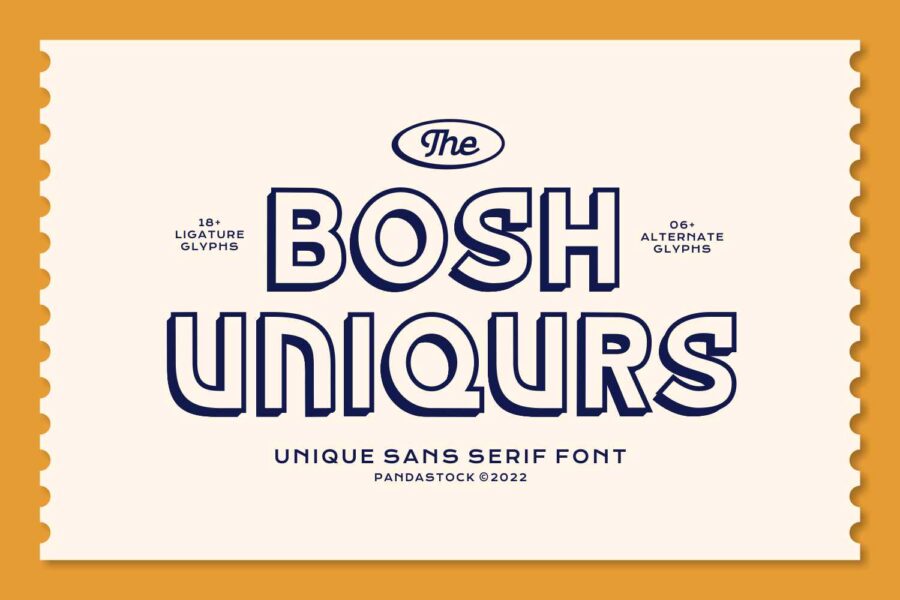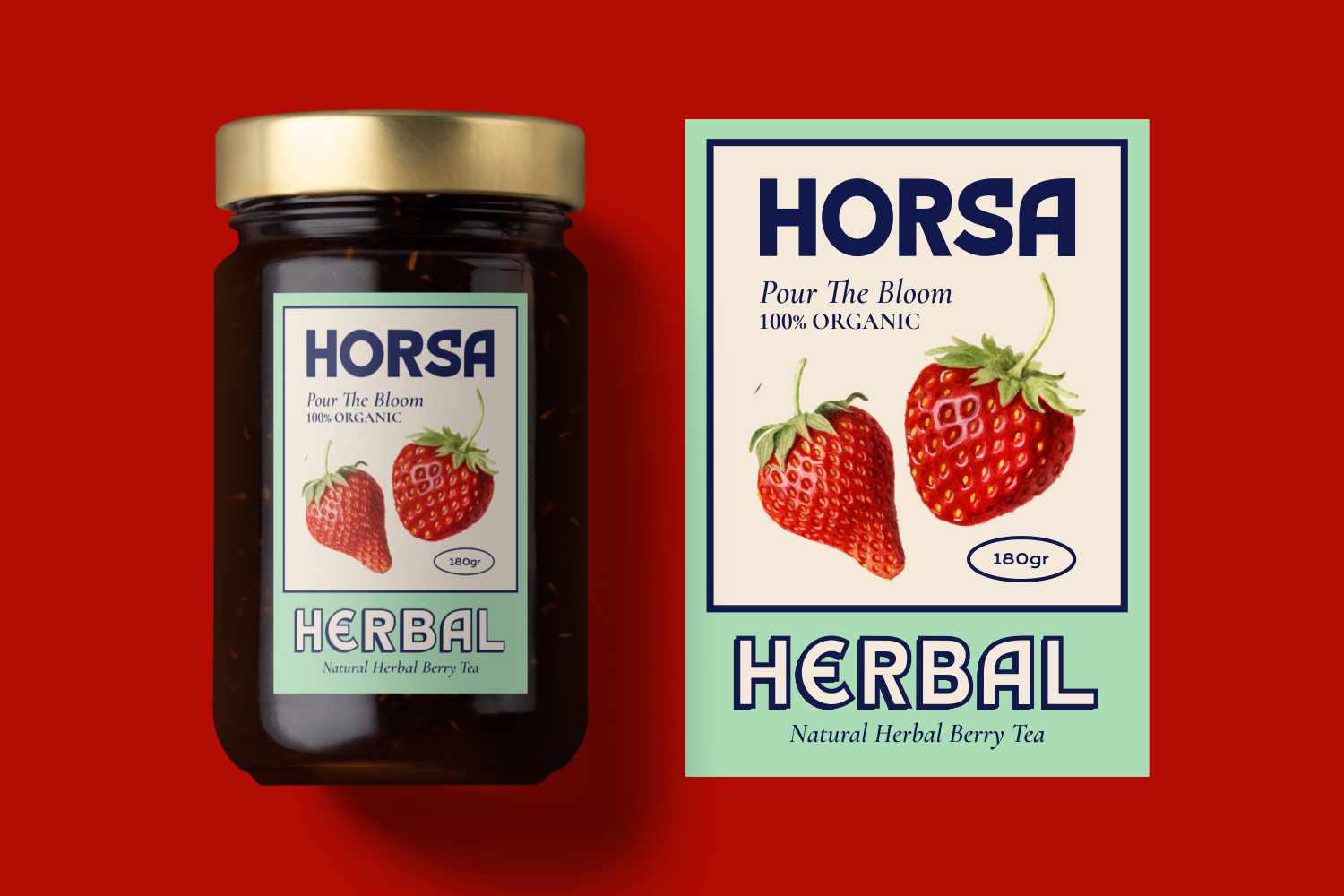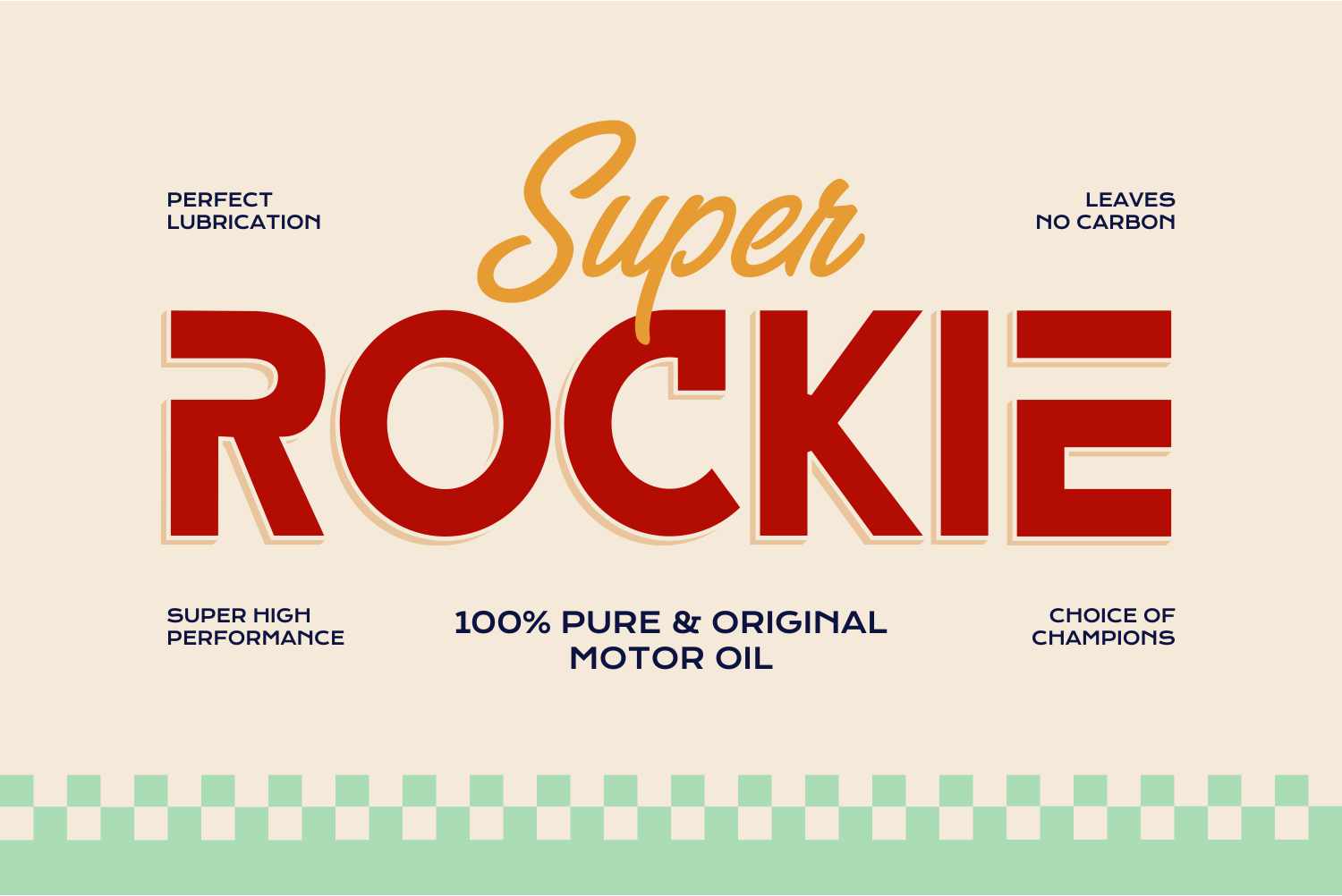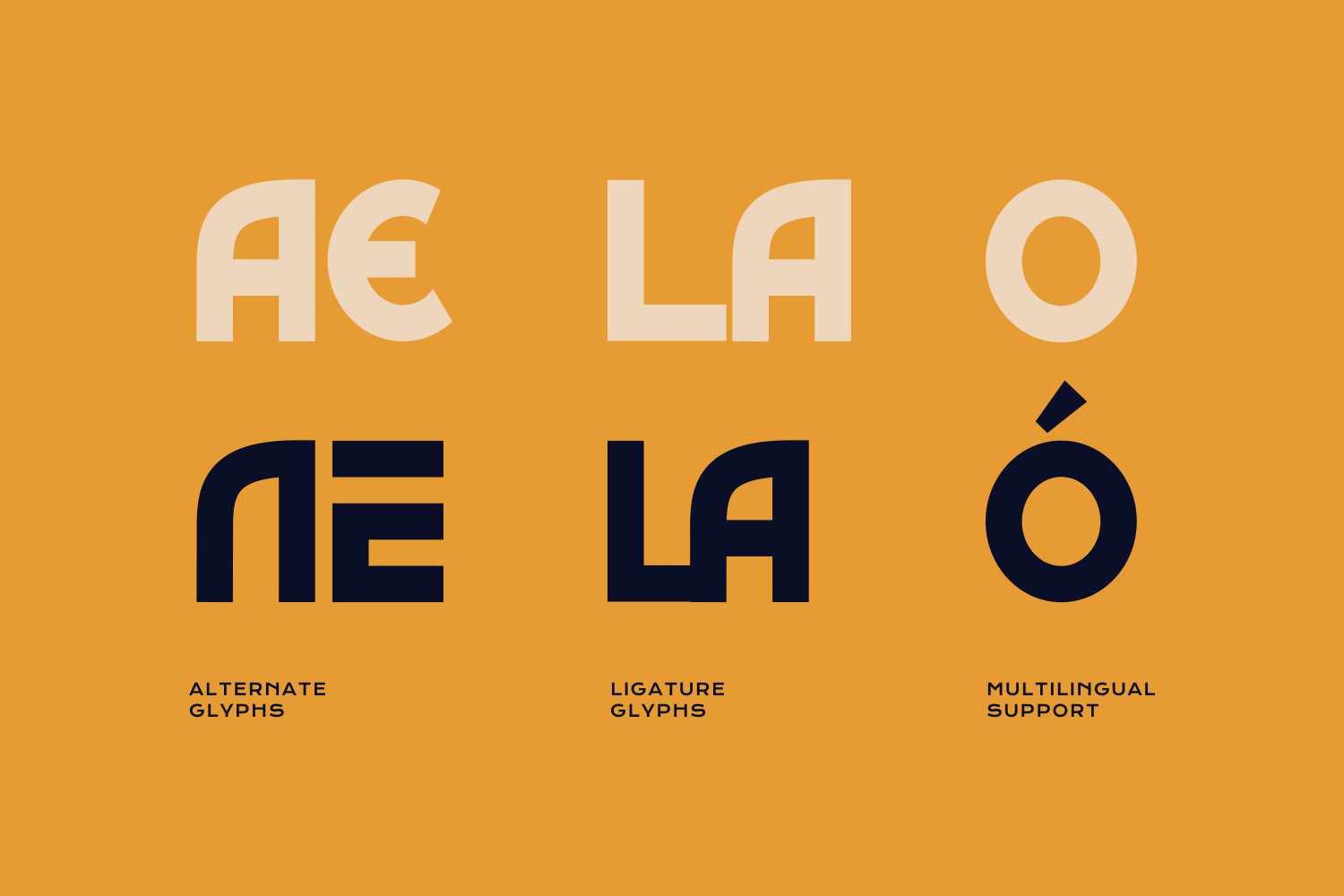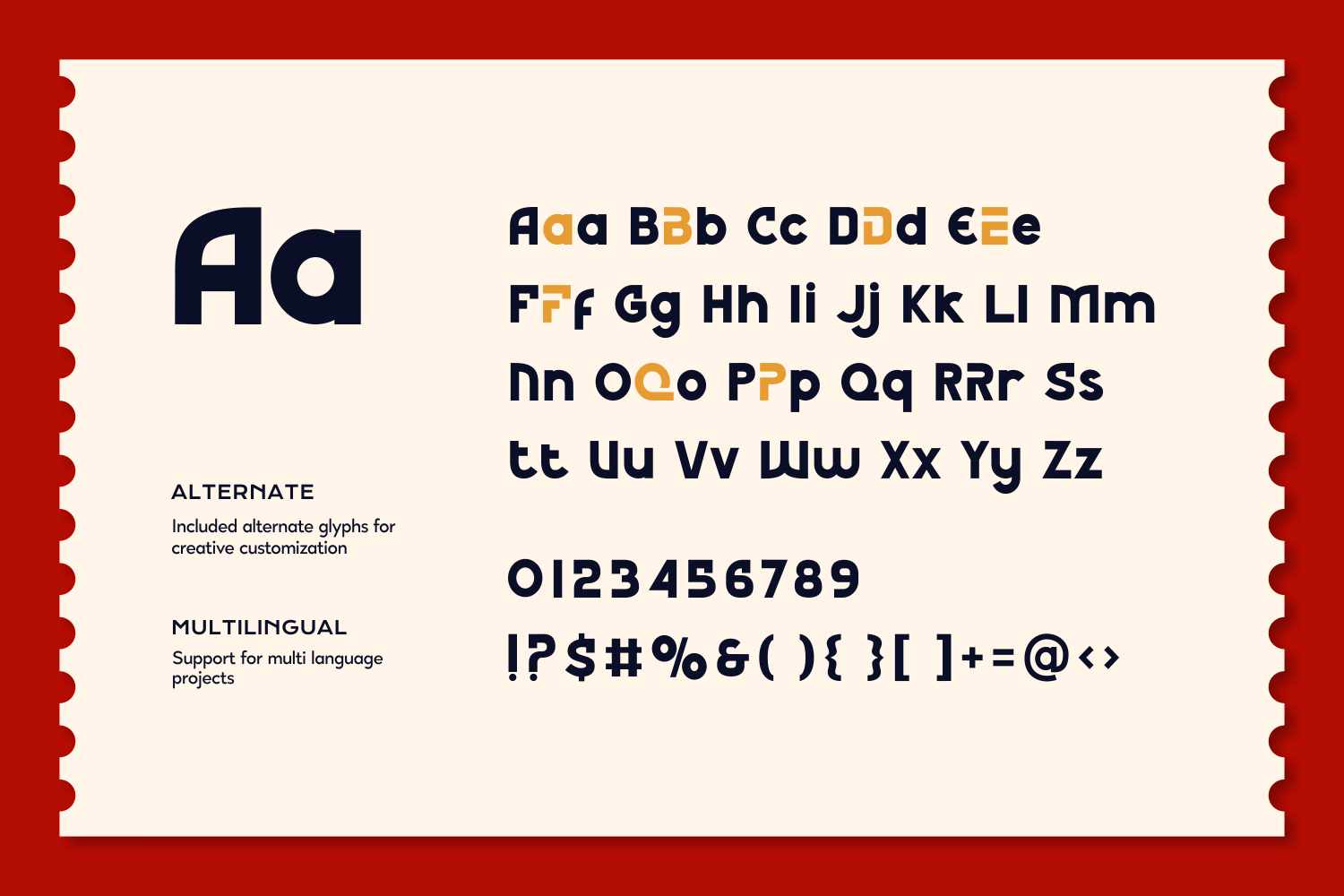
Bosh Uniqurs
Bosh Uniqurs is a Unique Sans Serif Font that combines retro-inspired shapes with a bold, modern twist. Featuring more than 18 ligature glyphs and multiple alternates, it offers endless creative possibilities for logos, packaging, posters, and branding projects. Its strong outlines and geometric curves create a striking look that feels both playful and professional.
Perfect for vintage-style labels, editorial headlines, or lifestyle branding, Bosh Uniqurs brings versatility and character to every project. With multilingual support and stylish alternates, this font is ideal for designers who want to achieve a nostalgic yet contemporary design aesthetic.